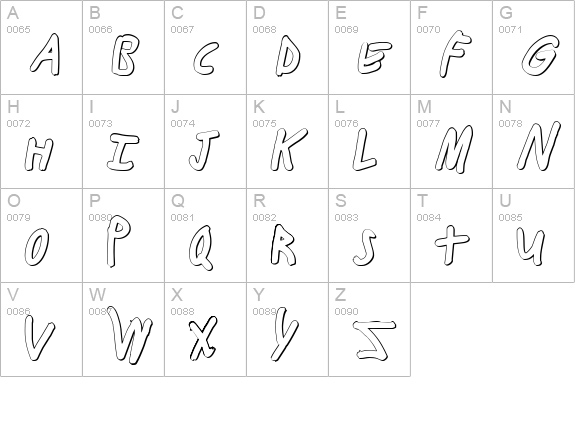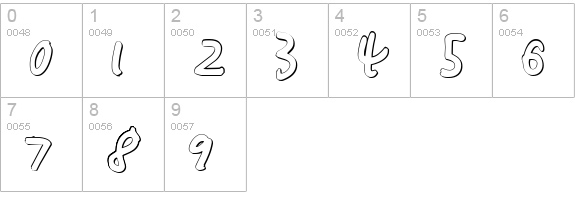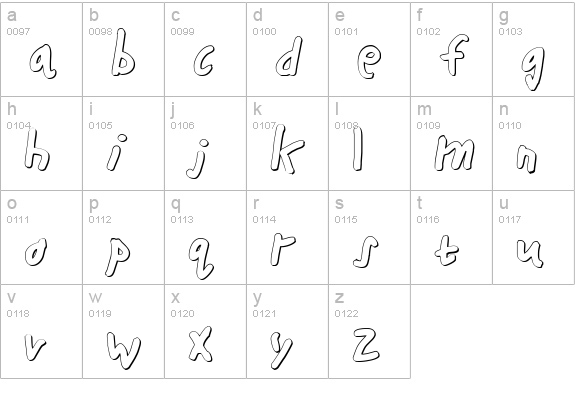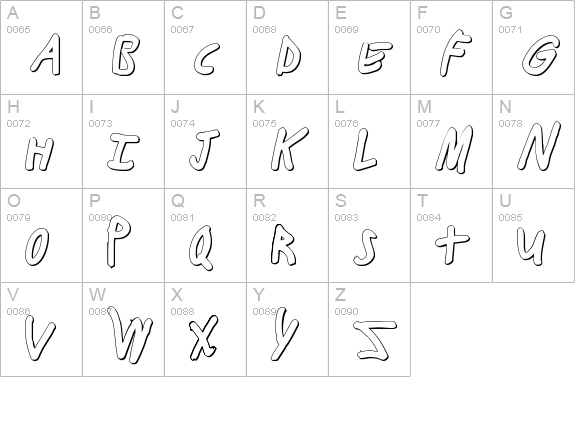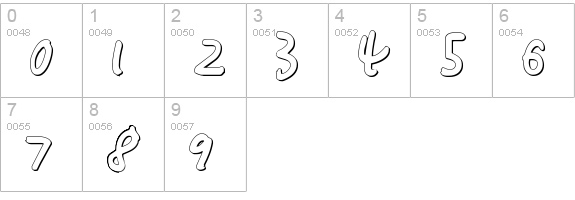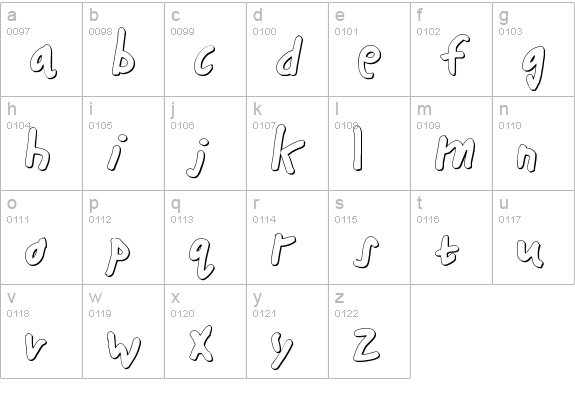
Buttons the Bear 3D font is a charming and playful typeface that brings a touch of whimsy to any design project. Inspired by the adorable and cuddly nature of bears, this font features a 3D effect that adds depth and character to your text. With its rounded edges and friendly appearance, Buttons the Bear is perfect for children's books, greeting cards, and any project that needs a touch of cuteness. Best of all, Buttons the Bear 3D font is completely free to download at FontsMarket.com. Whether you're a professional designer or just looking to add a fun touch to your personal projects, this font is a fantastic choice. Download Buttons the Bear today and let your creativity soar!